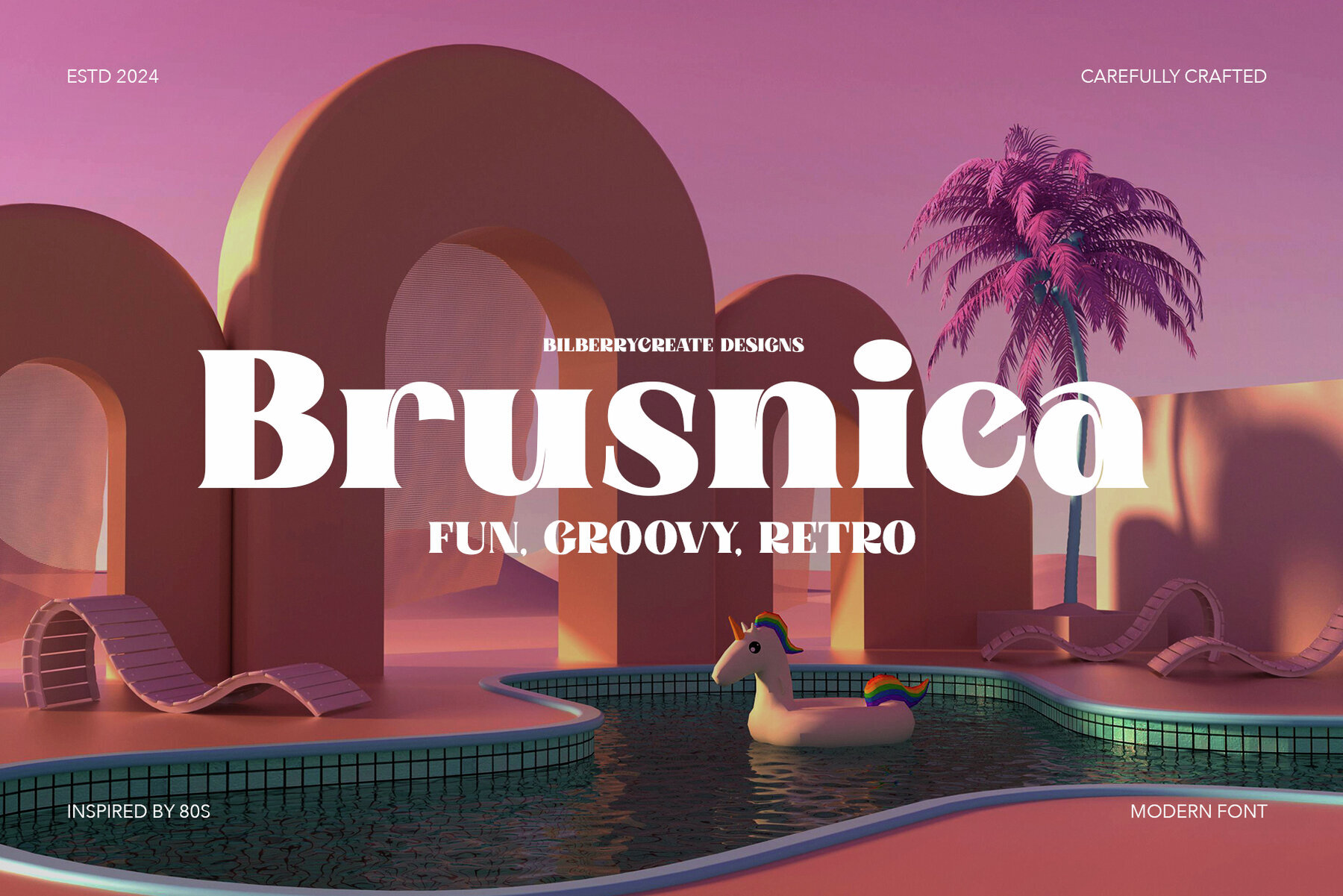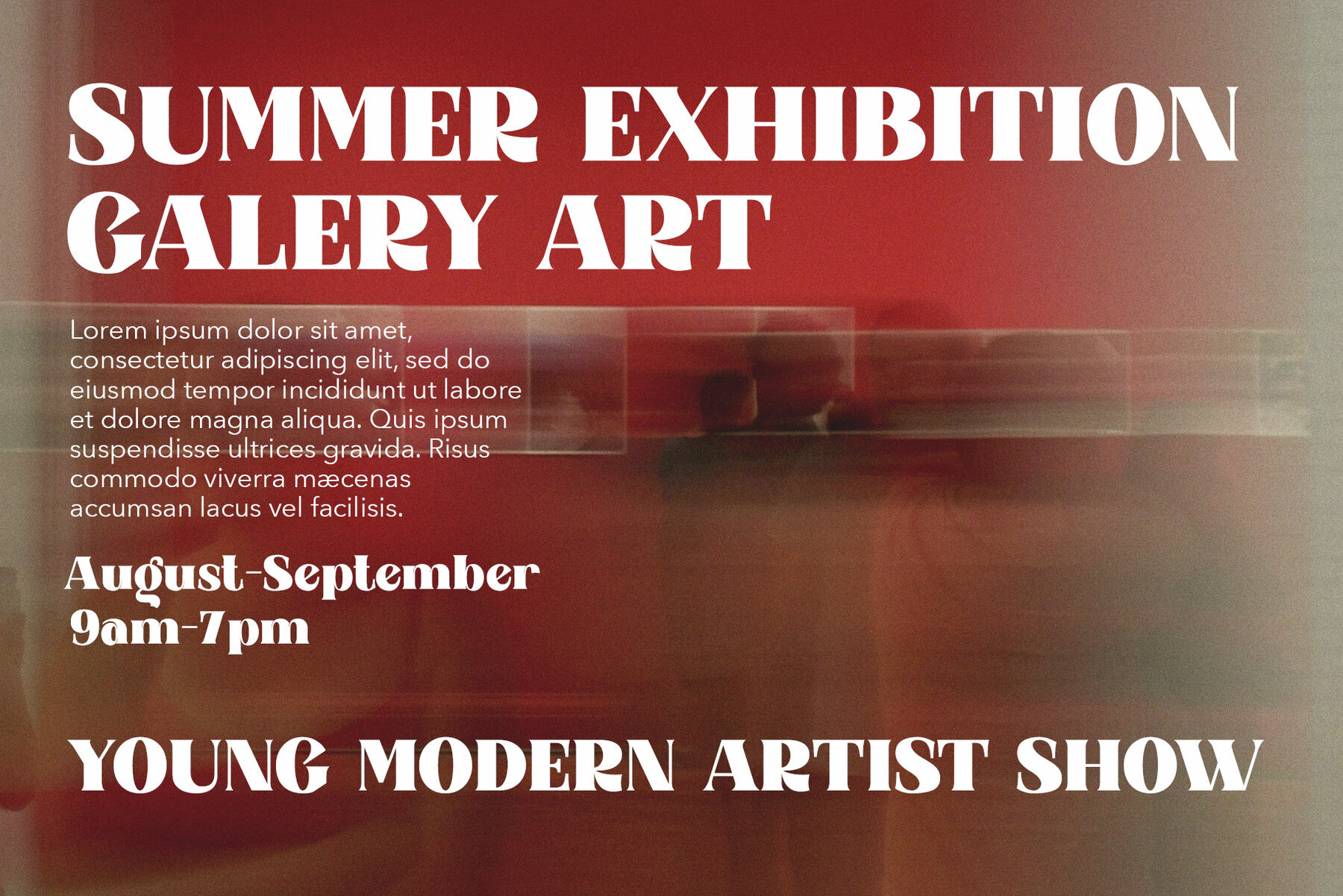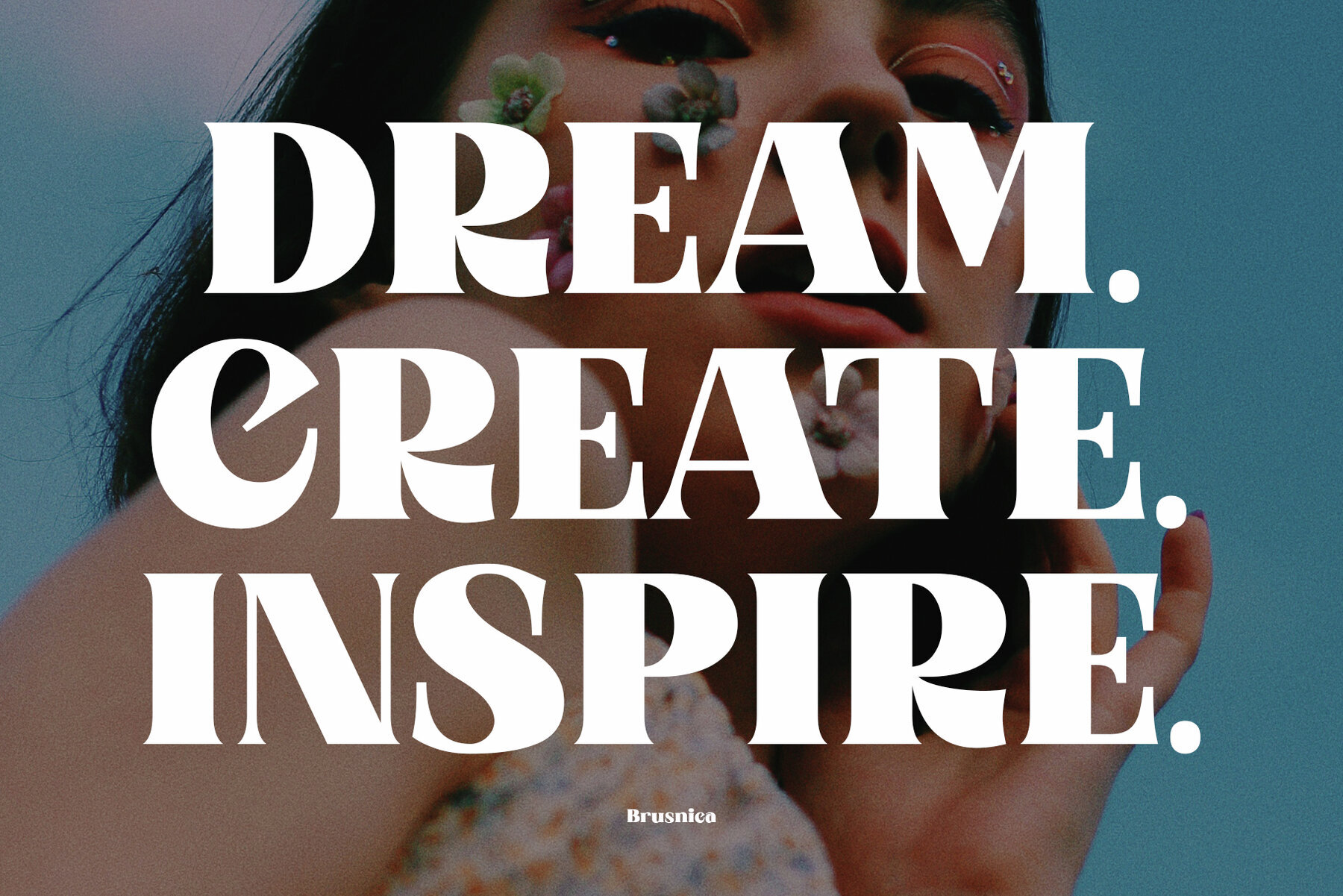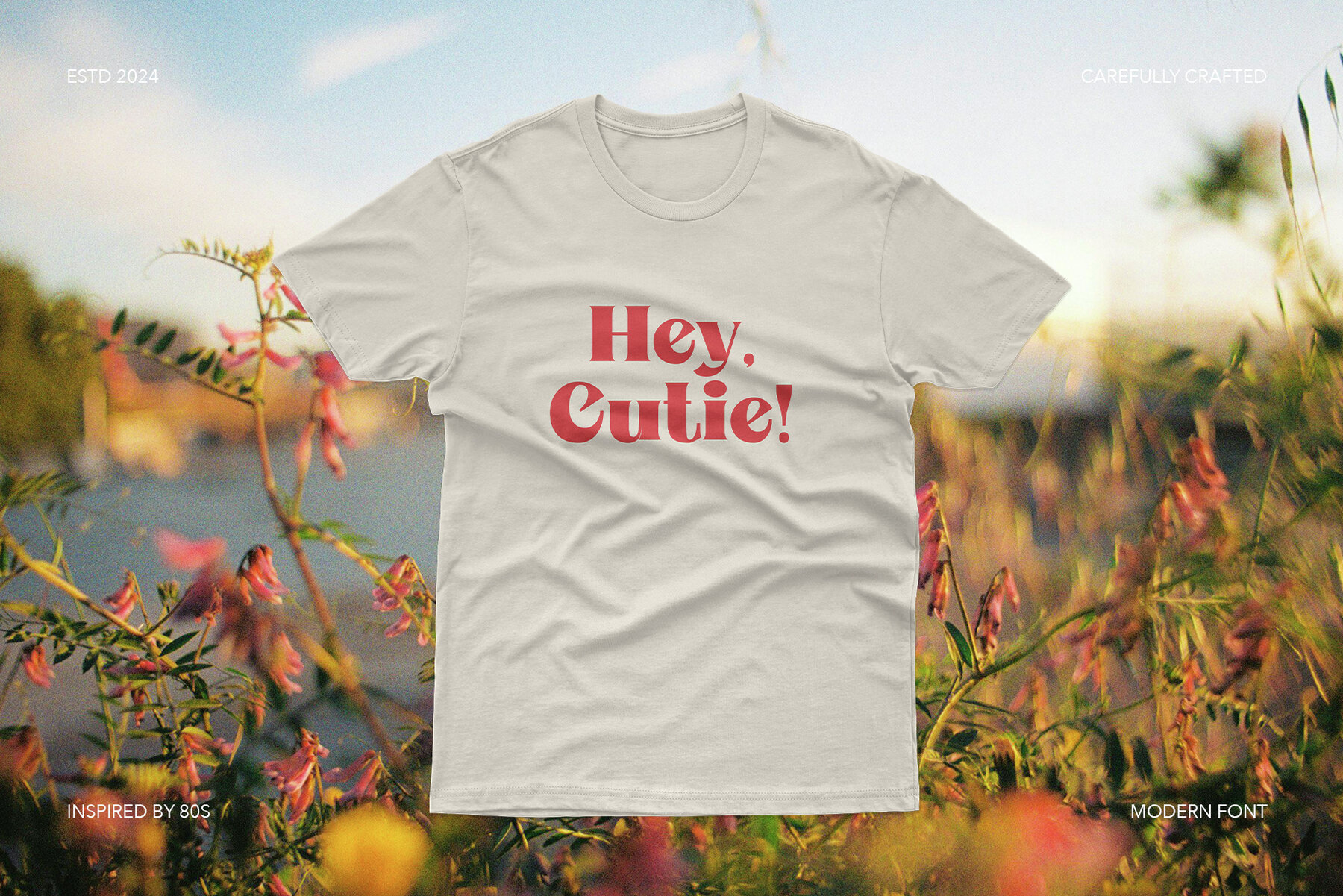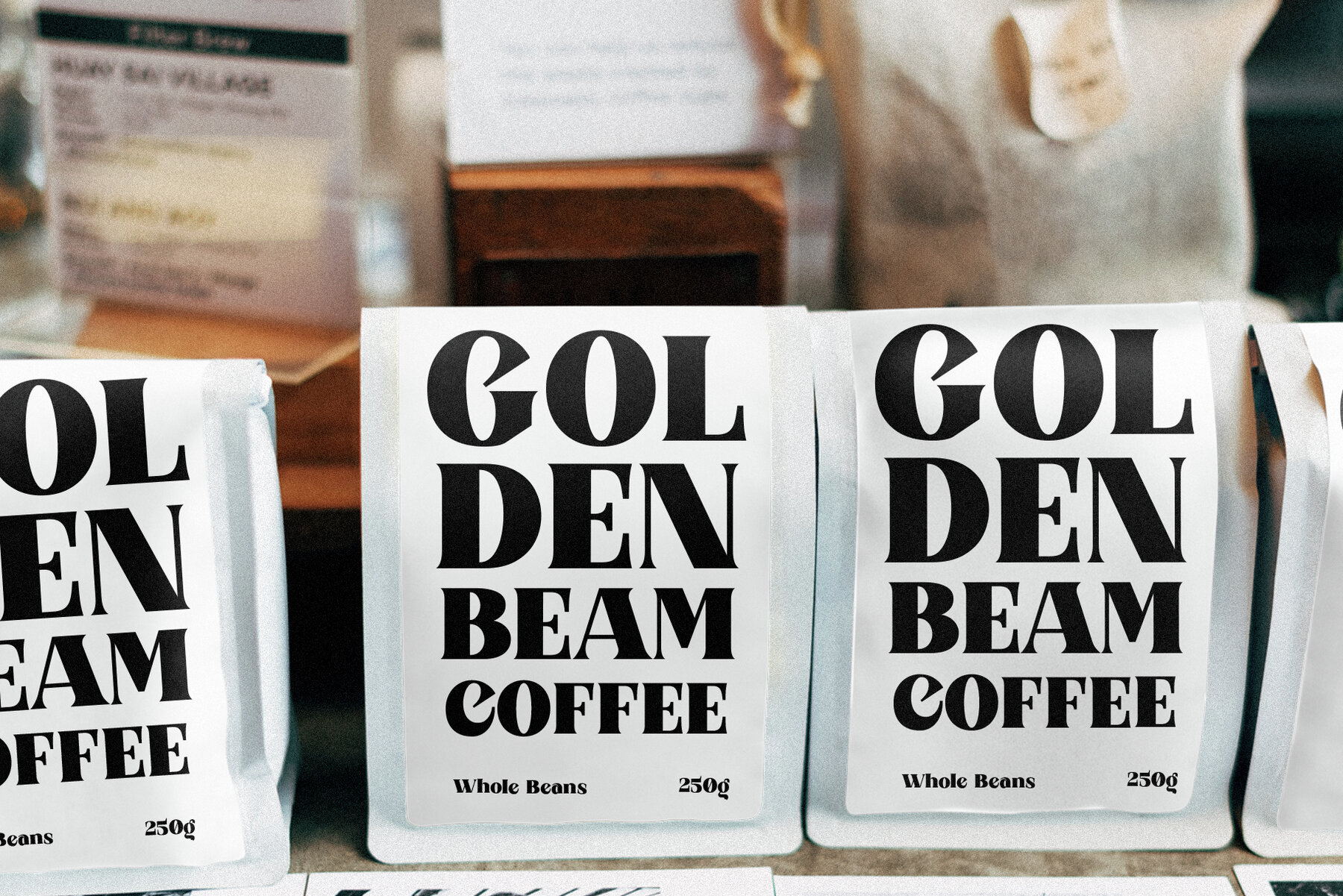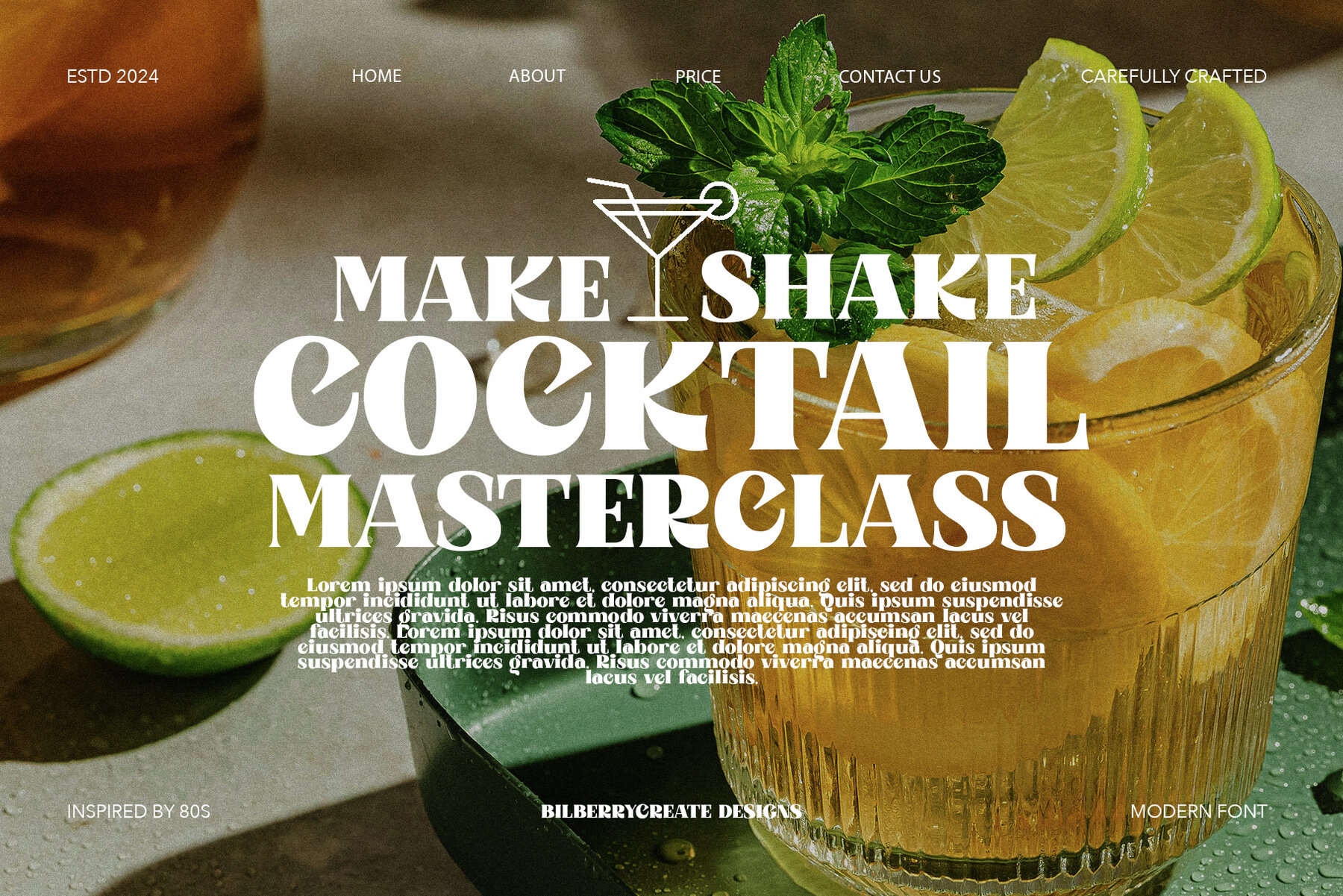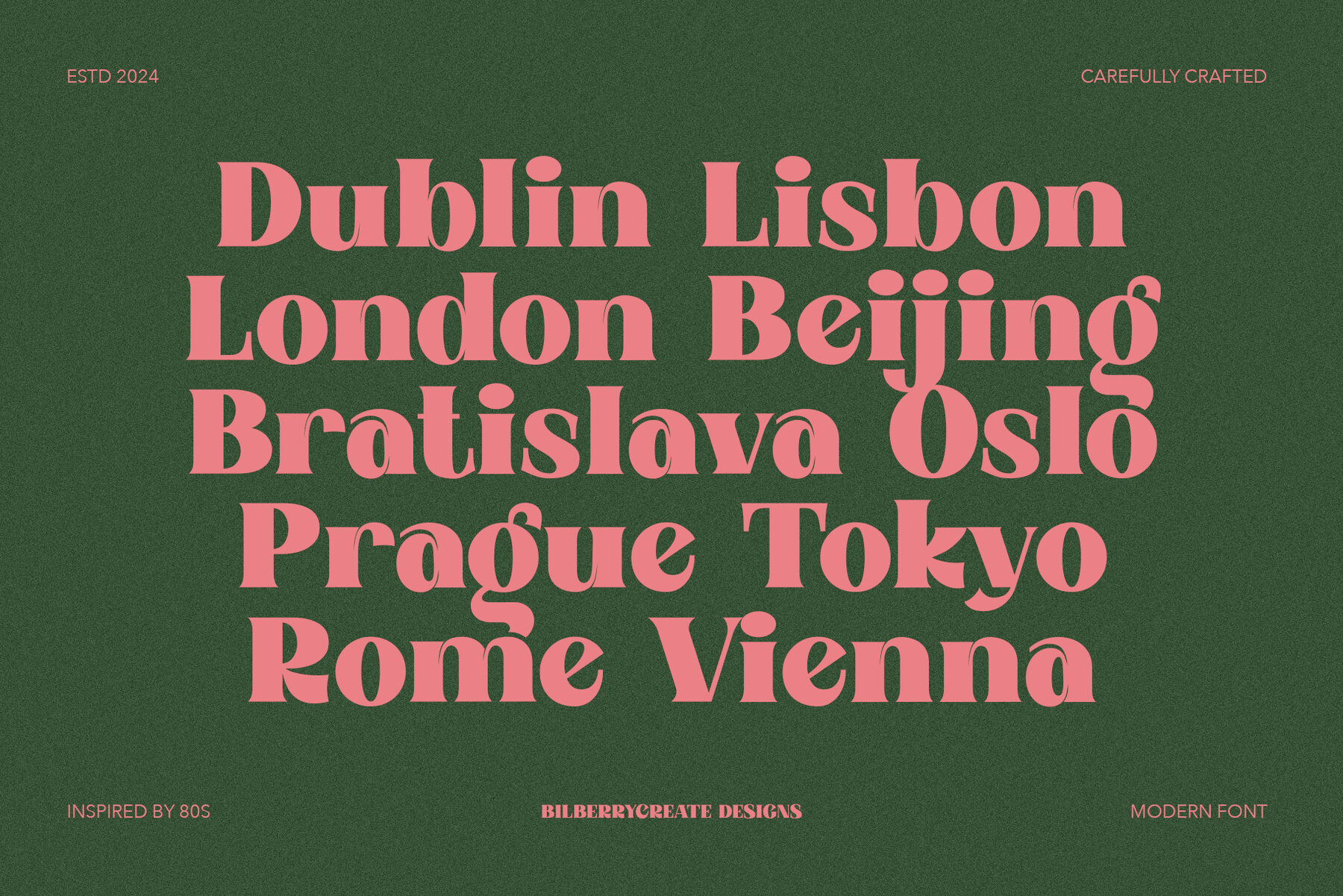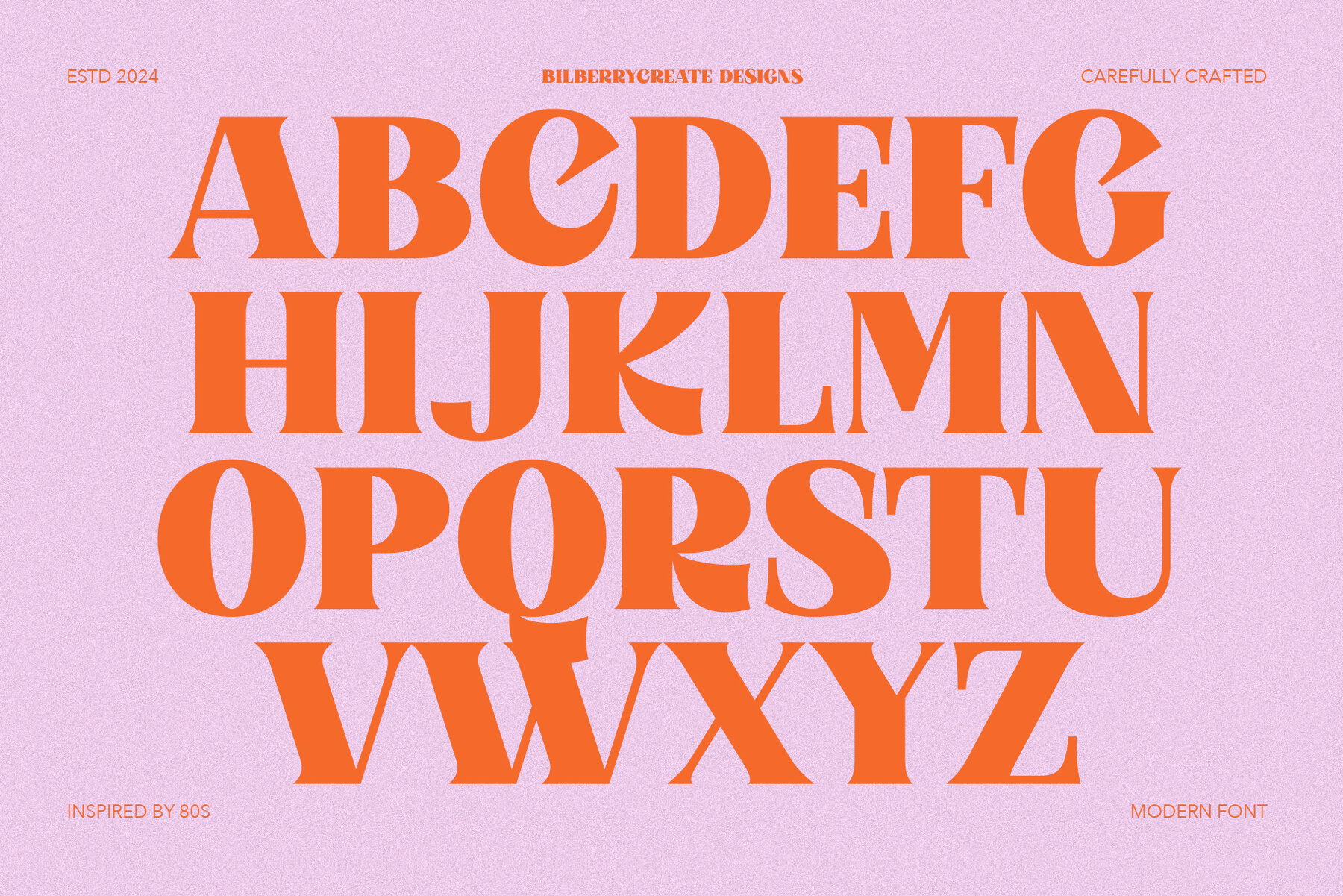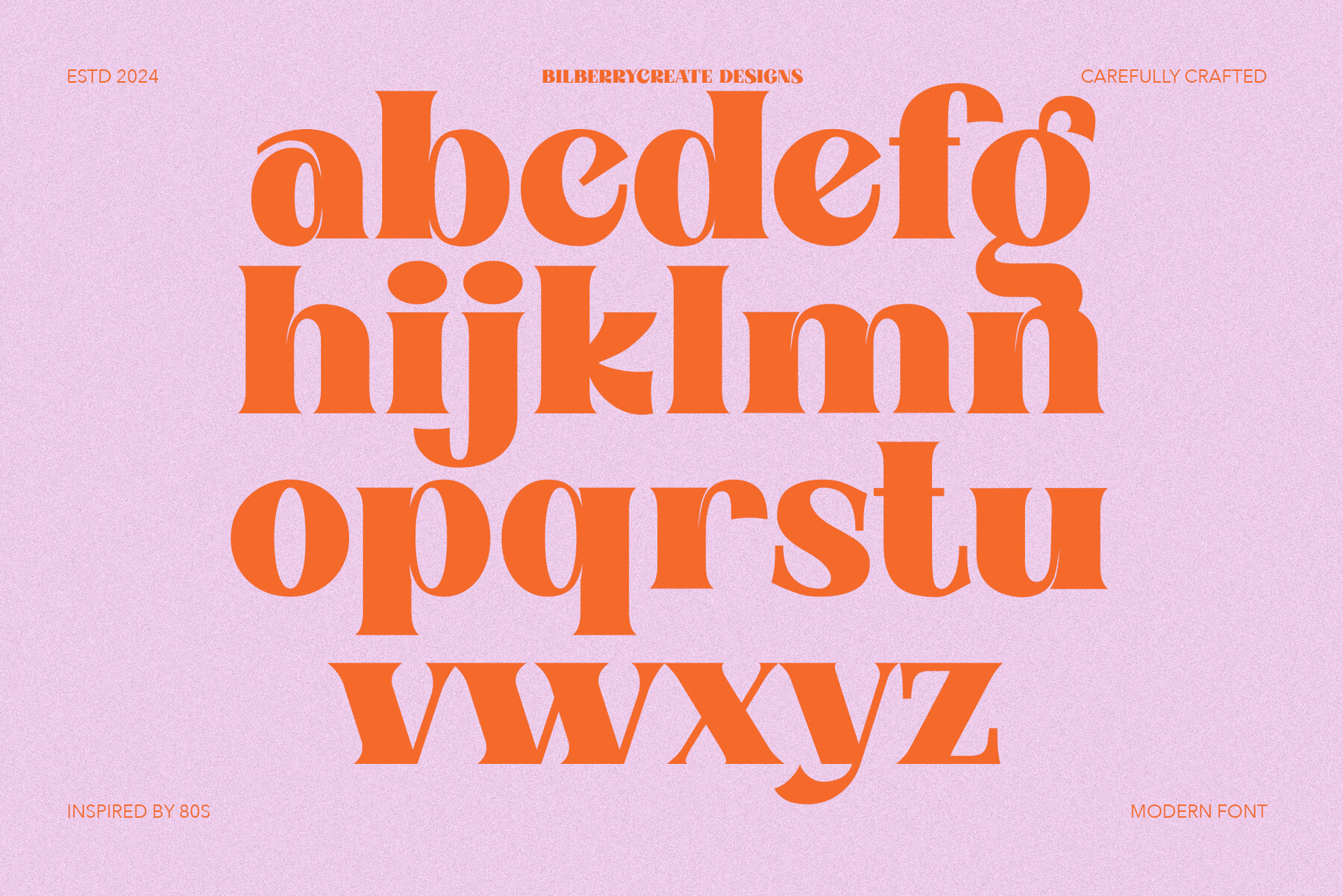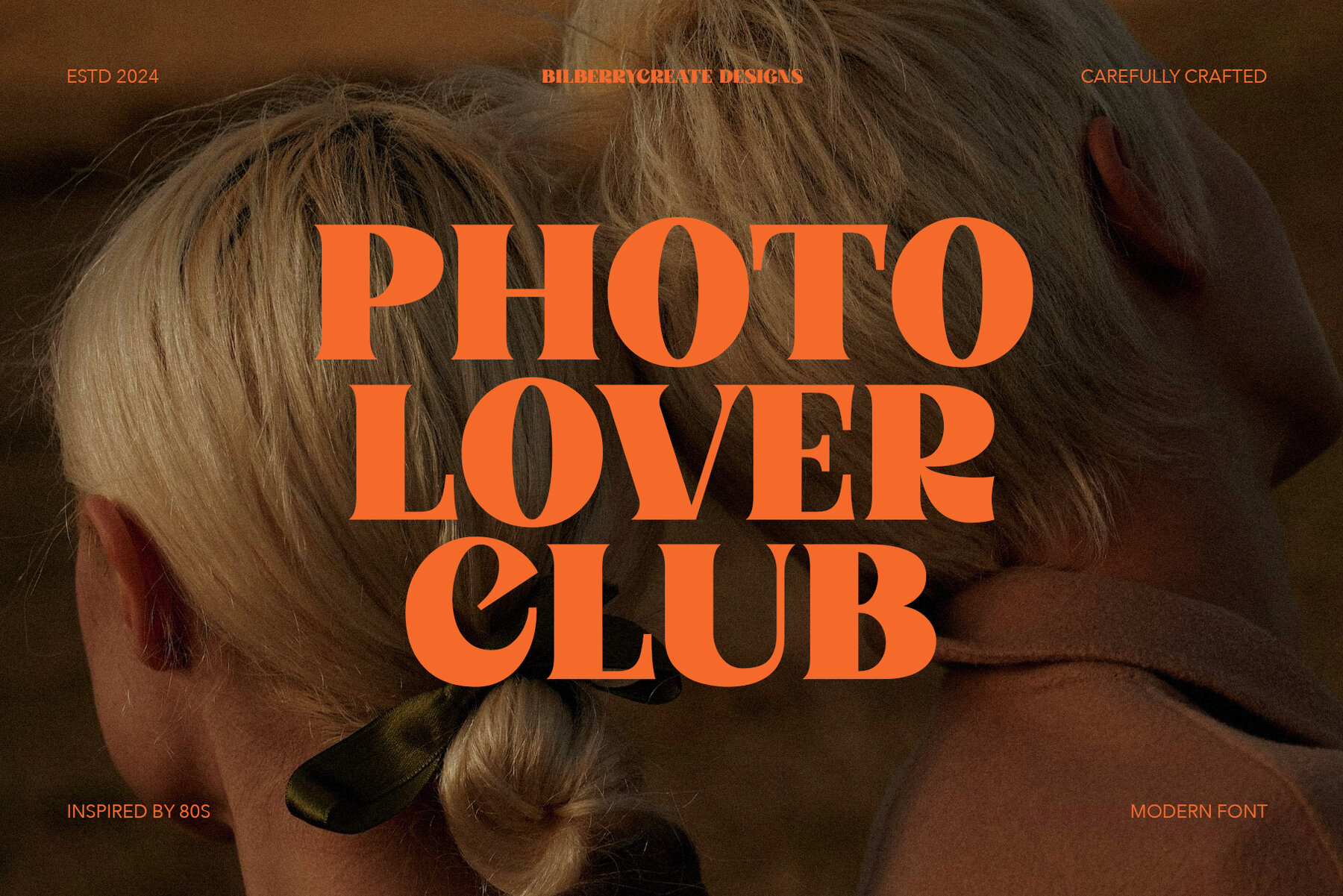
Brusnica Font
Brusnica Regular
Brusnica is a retro serif font exuding a vibrant 80s groove, perfectly capturing the funky and nostalgic vibe of the era. Its unique design makes it an ideal choice for adding a distinctive touch to any digital project. Whether you're crafting logos, designing invitation cards, or venturing into creative endeavors such as scrapbooking and home decor, Brusnica provides a versatile toolbox for your designs.
This font is perfect for a variety of occasions, from wedding and birthday invitations to holiday gift packaging and party decorations. Its adaptability extends to print applications, making it suitable for fabrics and numerous other mediums. Embrace Brusnica's lively retro charm to enhance your projects with an appealing, nostalgic feel that stands out in any creative scenario.